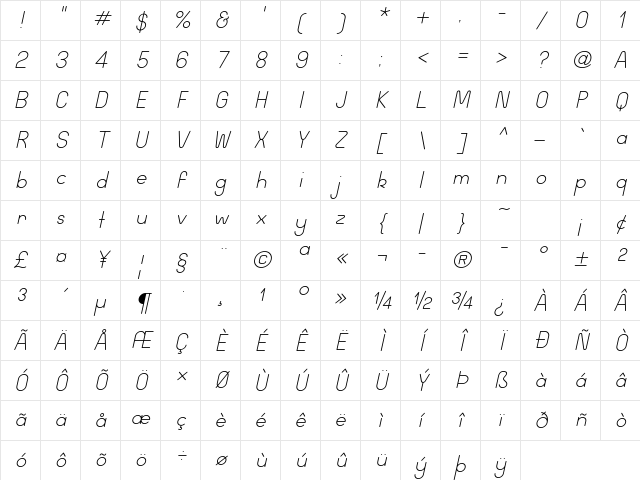
Complete Wida Round Light Demo Italic glyph index. Displaying only characters natively supported by Wida Round Light Demo Italic font.
Wida Round Light Demo softens its letterforms with rounded terminals, giving it an approachable, friendly quality that works well in consumer-facing and digital contexts. The slanted form adds forward momentum and visual energy. Its slender proportions lend an understated elegance to any composition.
Font Pairing: Pairs well with a rounded or humanist sans for body copy, maintaining the friendly tone without relying on Wida Round Light Demo to carry extended reading.
Pro Tip: Use Wida Round Light Demo for UI elements, app interfaces, and anywhere a friendly, approachable tone needs to be maintained without sacrificing clarity.